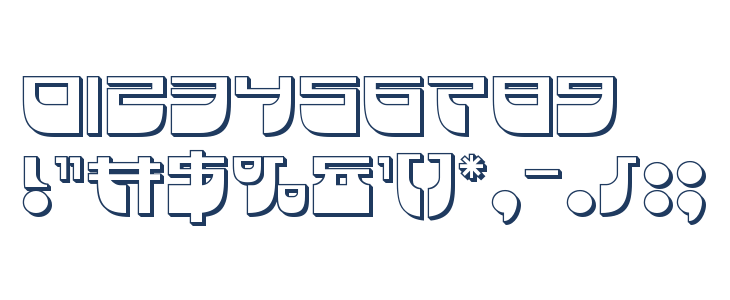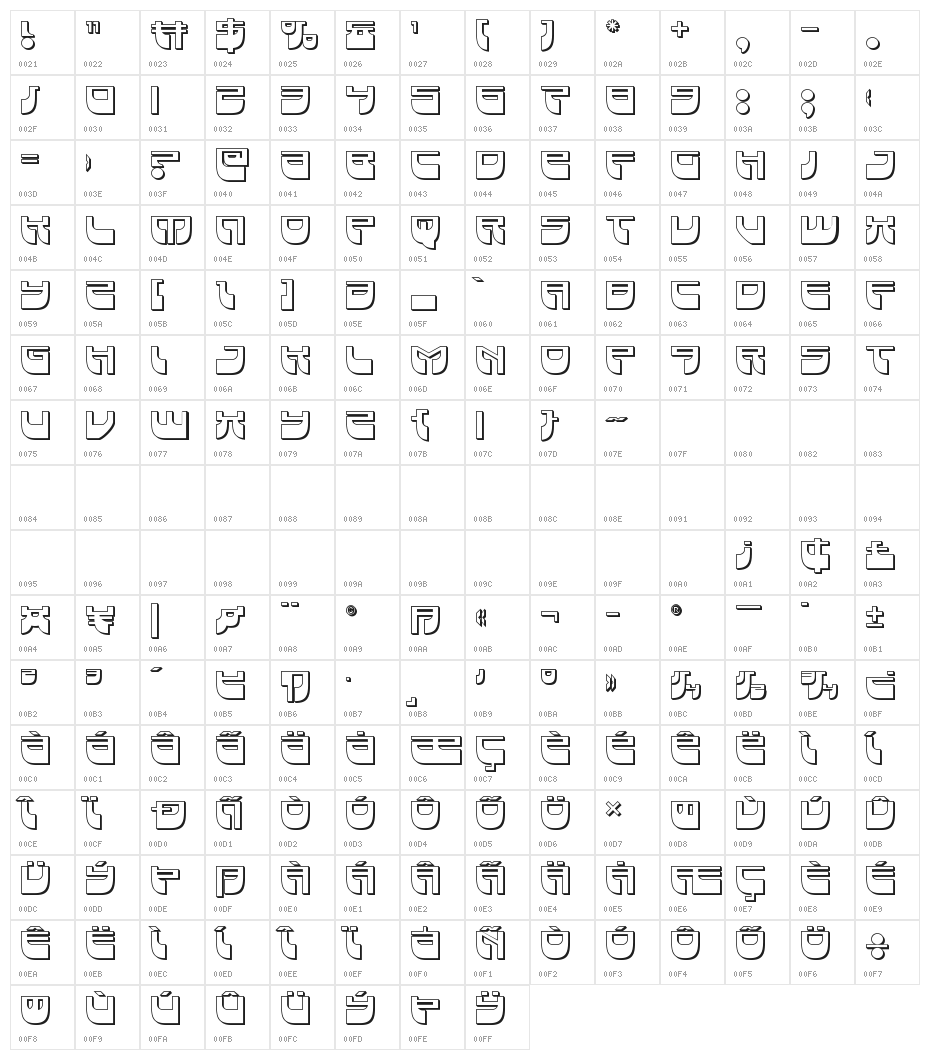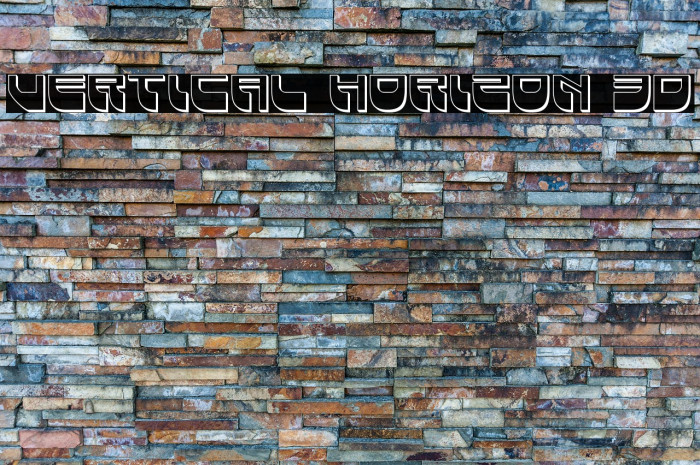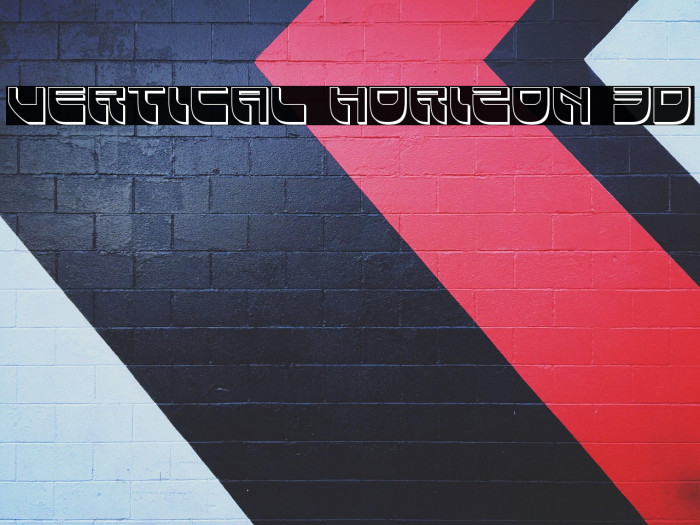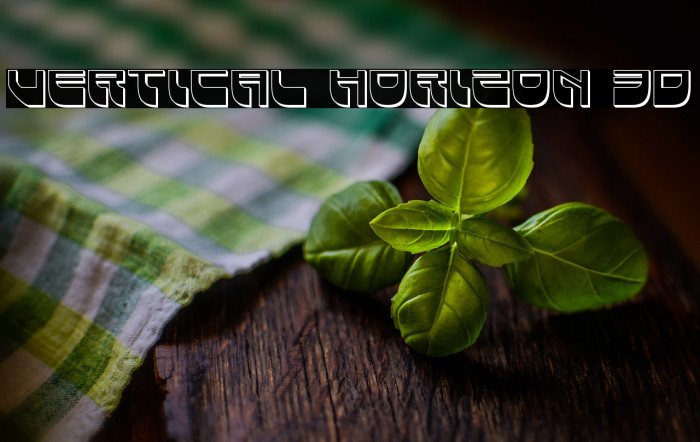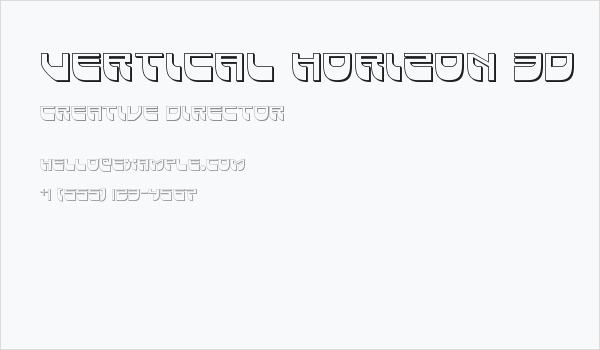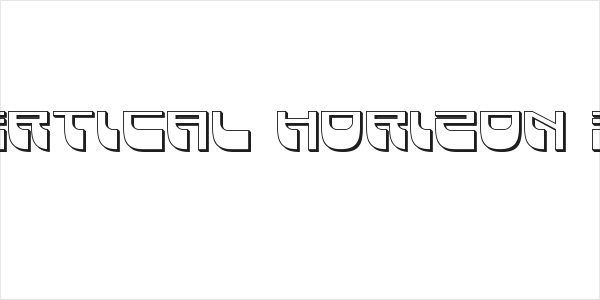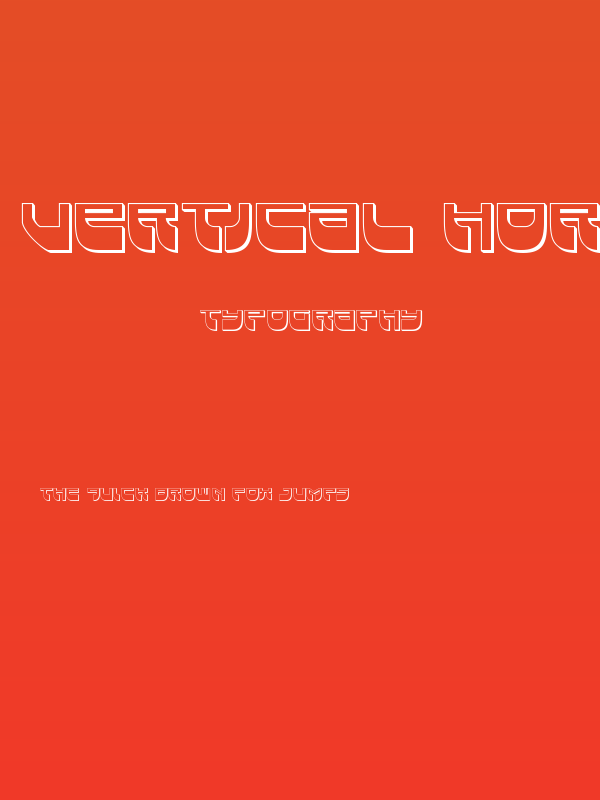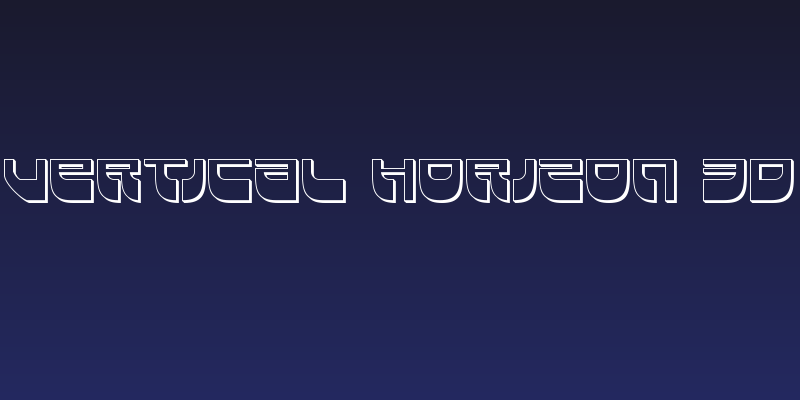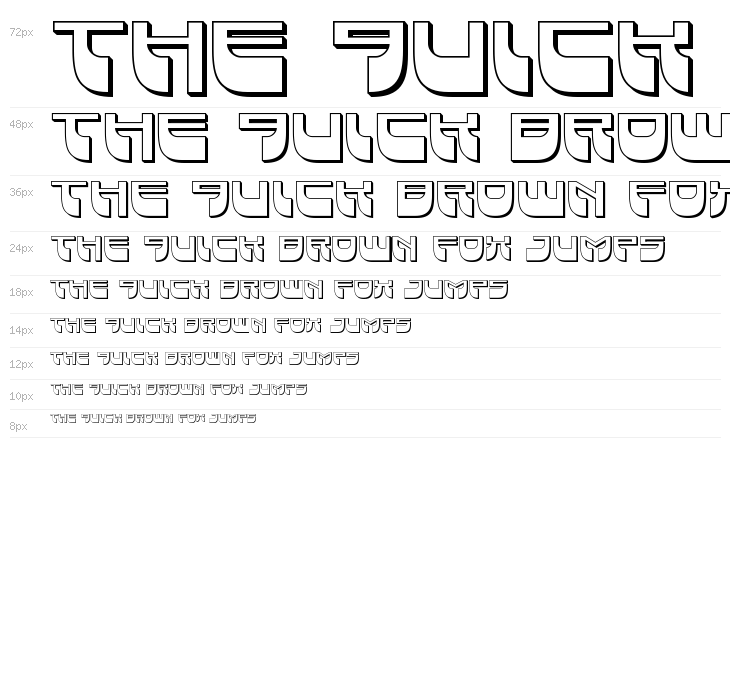
Vertical Horizon 3D Font
Vertical Horizon 3D Description
This font features a futuristic and geometric design with a 3D effect, characterized by bold, angular lines and a distinct outline that gives each character a sense of depth. The uppercase and lowercase letters share a consistent style, with the uppercase being slightly more pronounced. The numerals and special characters maintain the same aesthetic, ensuring uniformity across all glyphs. The overall appearance is modern and eye-catching, making it suitable for projects that require a strong visual impact.
| Proposed Projects | Ideal for sci-fi themed designs, video game titles, posters, and branding that requires a modern and striking look. |